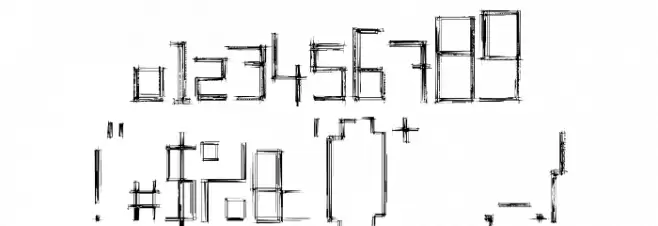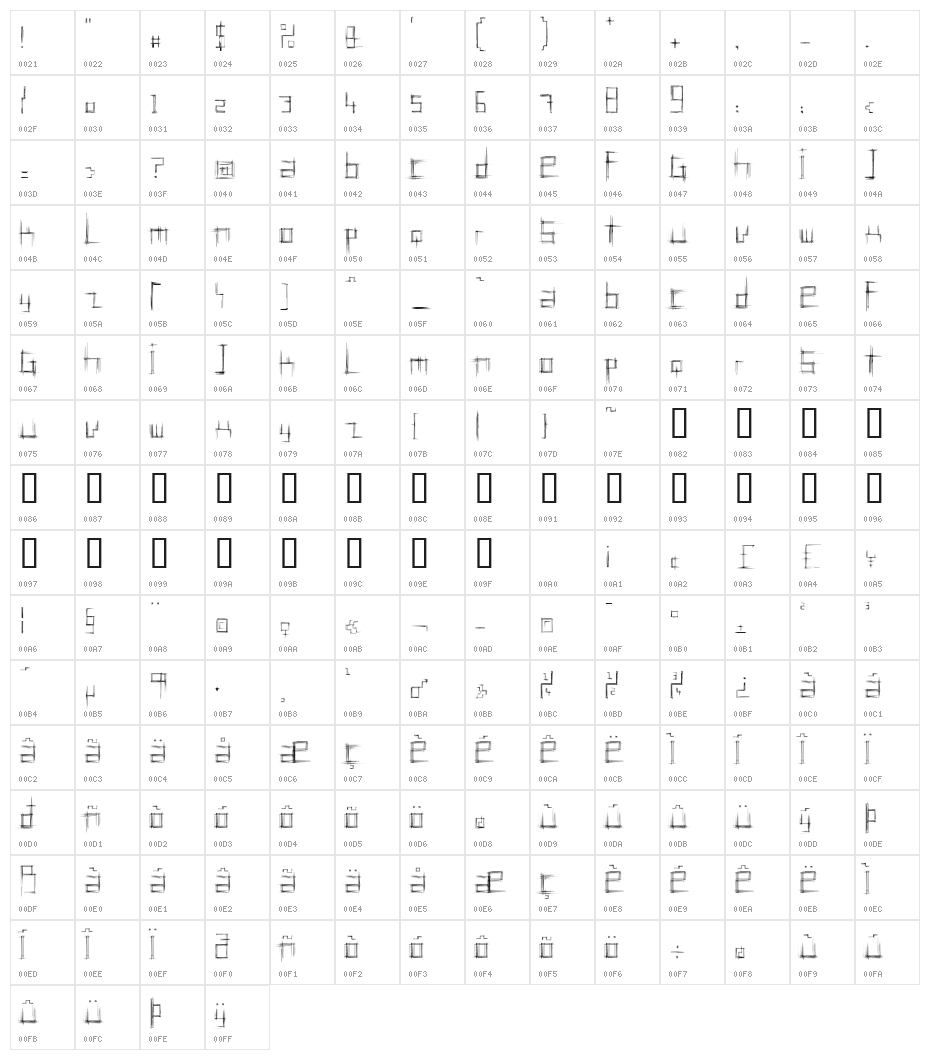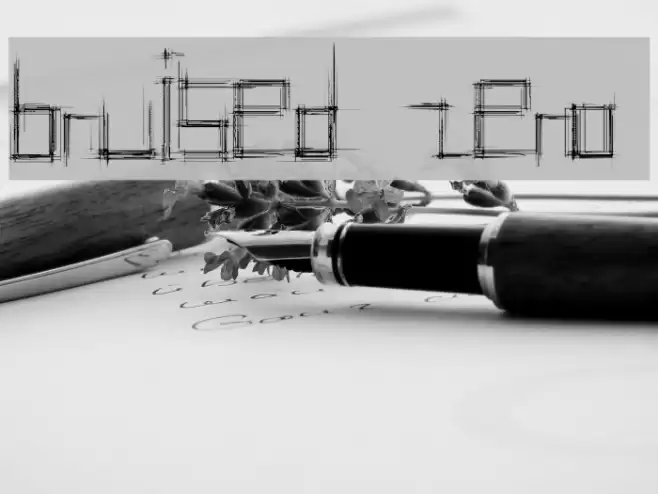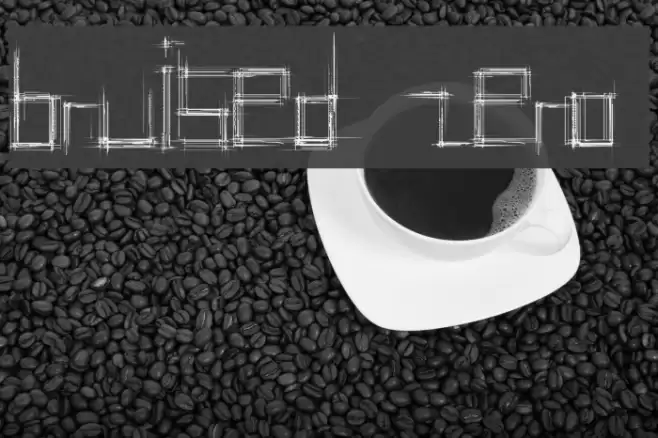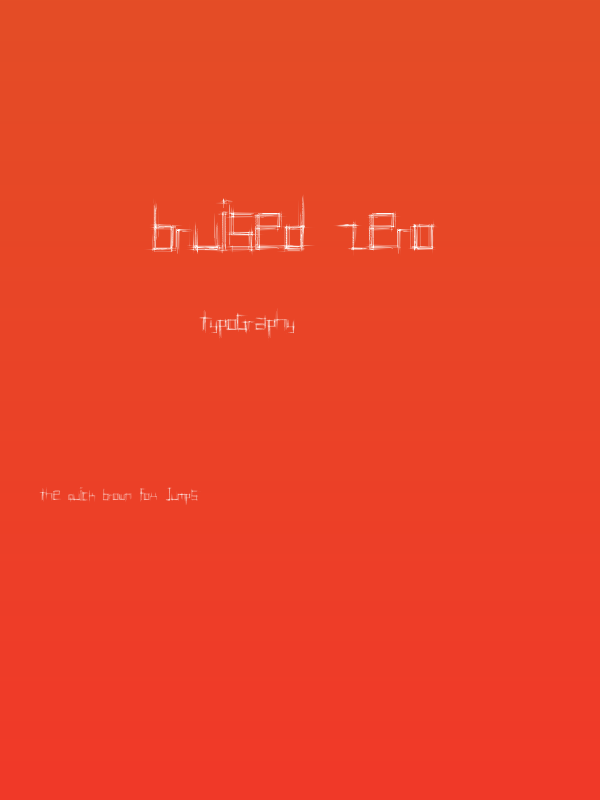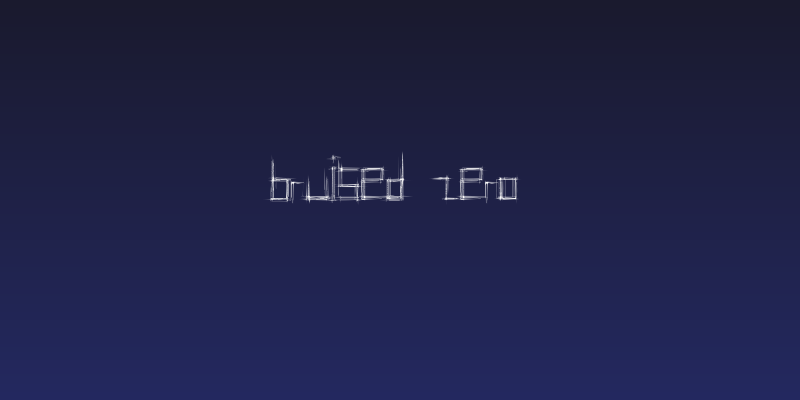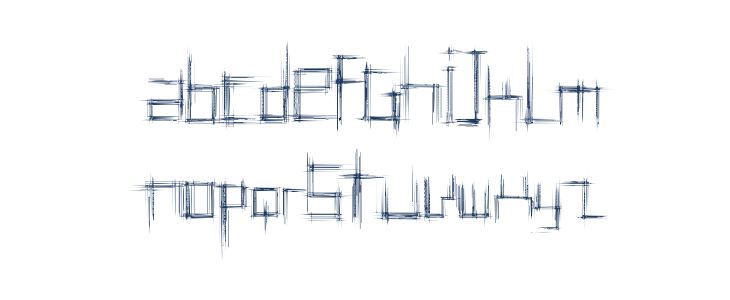
Bruised Zero Font
Bruised Zero Description
This font features a unique, distressed appearance with a sketch-like quality. Each character is outlined with rough, uneven strokes, giving it a hand-drawn, artistic feel. The letters are primarily uppercase, with a geometric structure that is both modern and edgy. The font's irregular lines and textured look create a sense of movement and energy, making it stand out in any design. Its distinctive style is perfect for projects that require a bold, unconventional aesthetic. The font maintains legibility despite its intricate design, making it suitable for various creative applications.
| Proposed Projects | Ideal for album covers, posters, branding, and any project needing a bold, artistic touch. |